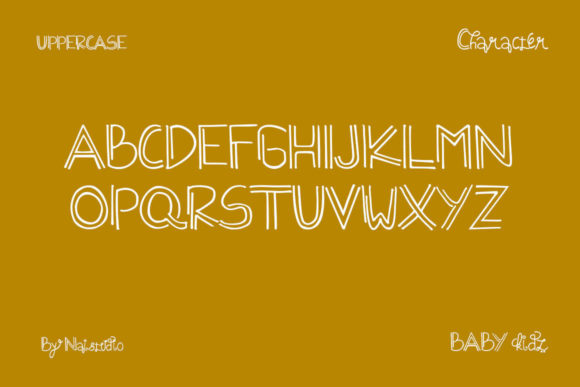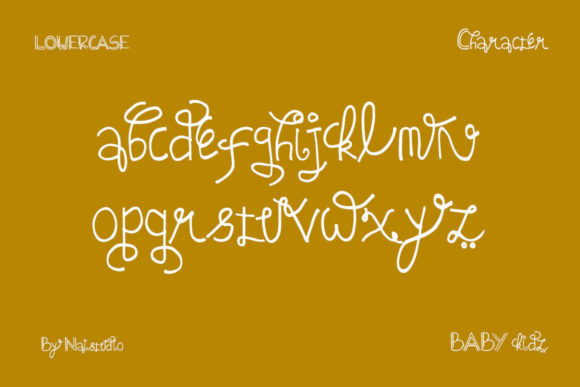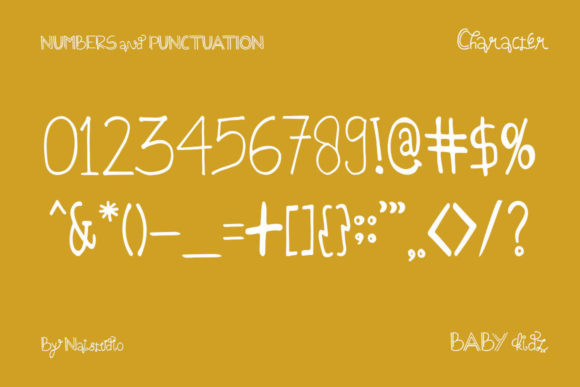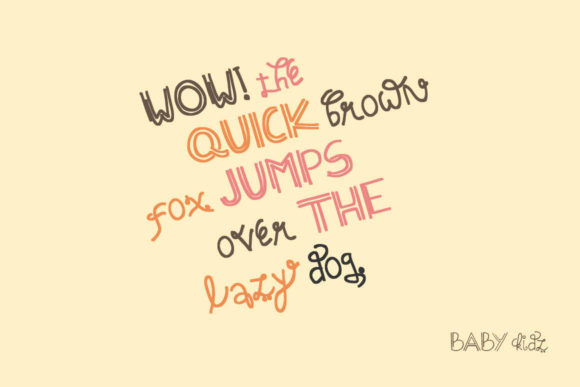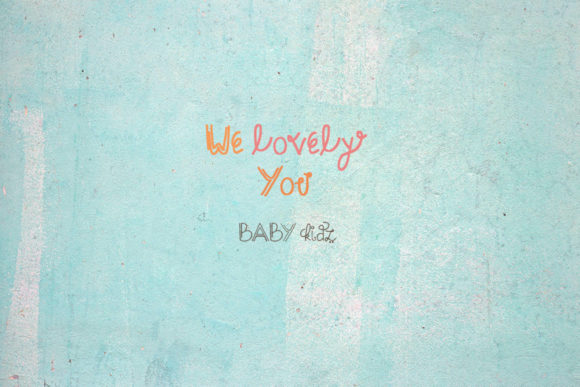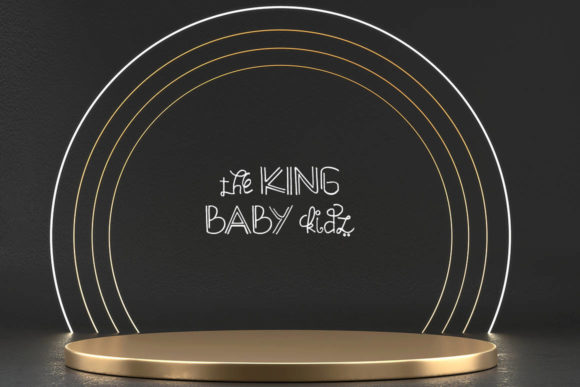
Unleash Your Inner Child with the Cutest Font Around
Do you remember the excitement of creating your first craft project as a child? The sparkly markers, the colorful paper, and the joy of bringing your imagination to life? As a designer, you’re likely no stranger to that feeling. Whether you’re working on a new branding project or a fun social media campaign, there’s something special about injecting a little bit of whimsy and playfulness into your designs.
That’s where the Baby Kidz Font comes in – a delightful display font that’s guaranteed to put a smile on your face and add an extra layer of magic to your creations. This charming font is perfect for anyone looking to add a touch of innocence and wonder to their designs, and its versatility makes it a valuable addition to any designer’s toolkit.
Baby Kidz Font Key Features
- Font Family: Baby Kidz Font is a playful, hand-drawn font designed for children’s products, educational materials, and nursery decorations.
- Size: The font family includes a range of sizes, from 12pt to 72pt, allowing for flexibility in design and layout.
- Resolution: Designed for high-resolution displays, Baby Kidz Font looks great on screens with resolutions of 72 dpi or higher.
- Unique Characteristics: The font features rounded edges, smooth curves, and whimsical details, making it perfect for creating a friendly and approachable atmosphere.
Baby Kidz Font Review
As a designer, I was excited to dive into the Baby Kidz Font, hoping to find a cute and playful font perfect for kids-related projects. Overall, I’d say it’s a solid addition to any designer’s toolkit, but with some limitations.
- Fun and playful vibe: The font definitely captures the lighthearted and whimsical feel of children’s content.
- High-quality glyphs: The font includes a wide range of characters, including accented letters and punctuation marks.
- Easy to read: Despite its playful appearance, the font remains easy to read, even at smaller font sizes.
- Limited language support: The font is primarily designed for Latin-based languages and may not be suitable for projects requiring support for other languages.
- No stylistic variations: While the font has a unique feel, it’s a bit one-dimensional, lacking different weights or styles to add visual interest.
While the Baby Kidz Font is a solid choice for kids-related projects, its limitations may make it less versatile than other fonts. Still, its fun and playful vibe makes it a great option for designers looking to add a bit of whimsy to their work.
Common Use Cases for Baby Kidz Font
The Baby Kidz Font is ideal for creating:
- Infant and toddler clothing labels.
- Children’s book illustrations and typography.
- Fun and playful social media graphics.
Alternatives to “Baby Kidz Font” for Designers
Great Vibes is a modern, elegant script font that is perfect for creating a soft, whimsical feel in designs. It’s ideal for use in invitations, branding, and packaging where a touch of sophistication is desired. Compared to Baby Kidz Font, Great Vibes is more refined and less playful, making it a great choice for designs that require a bit more maturity.
Cream Soda is a vintage-inspired font that features a unique, handwritten feel. It’s great for use in designs that require a touch of nostalgia and playfulness, such as children’s products, food packaging, and advertising. Unlike Baby Kidz Font, Cream Soda has a more relaxed, casual feel that works well in a variety of design contexts.